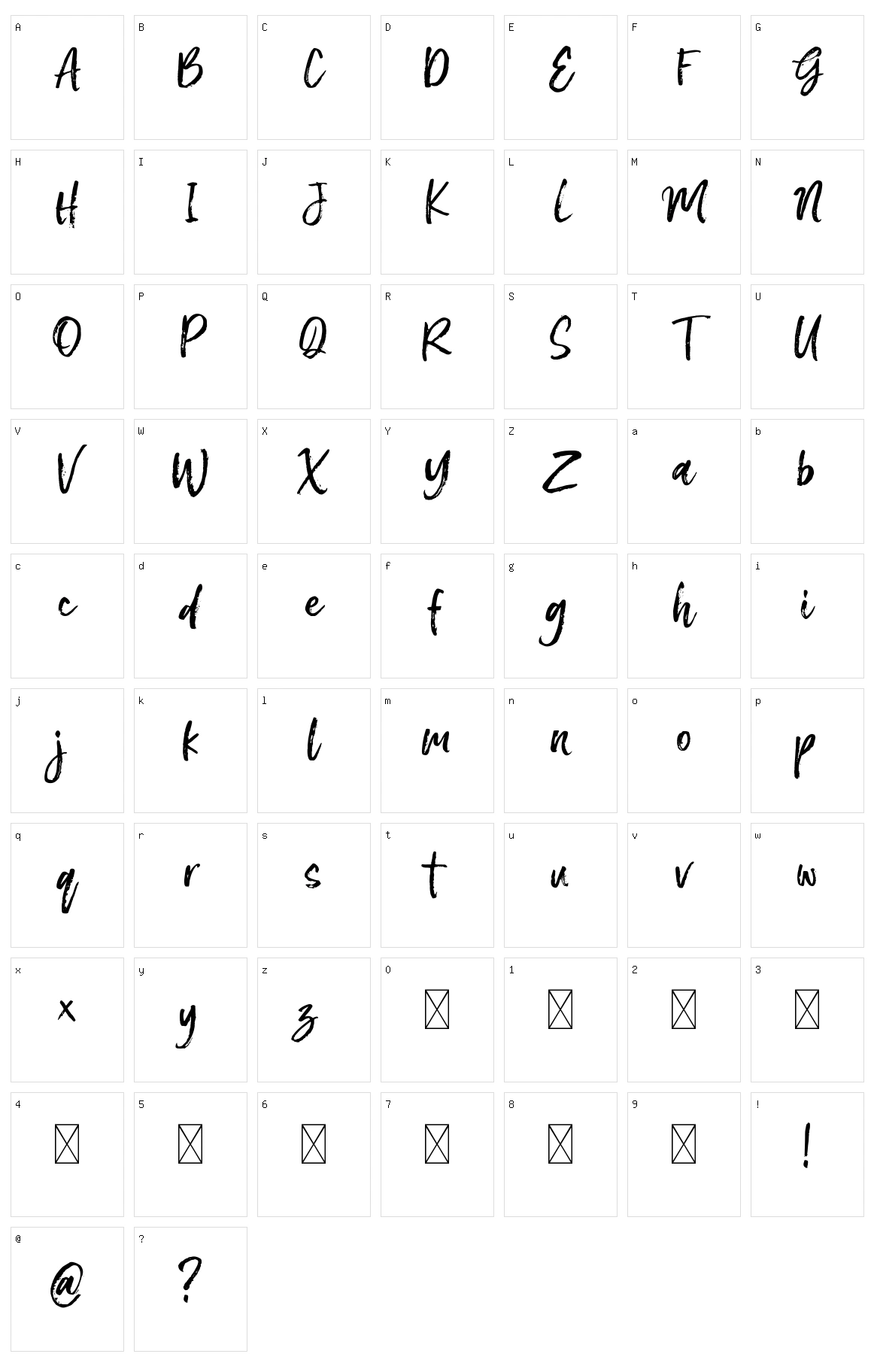
The free font Meredith is carefully designed by Damarletter, showcasing a thoughtful balance of creativity and usability and falls under the Script font style. When you download the ZIP file, it contains only 68.61 KB of font files, making it lightweight and quick to download. Please review the license details below to understand permitted usage and distribution rights. If license information is not available, we recommend using this font for personal projects only or contacting the author directly for commercial usage permissions.